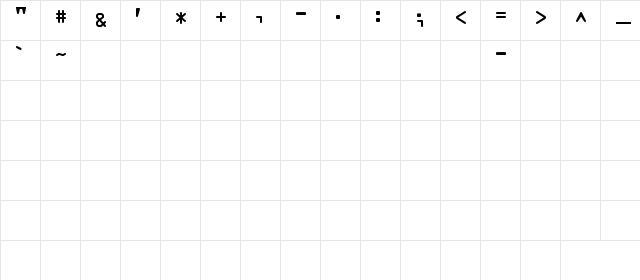
Complete Data Control Latin glyph index. Displaying only characters natively supported by Data Control Latin font.
Data Control is a composed and adaptable typeface that performs quietly and consistently across a wide range of design contexts.